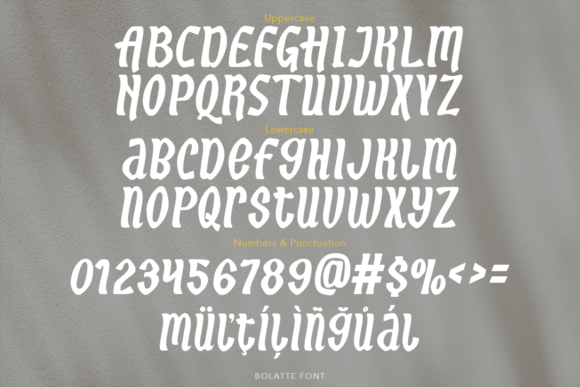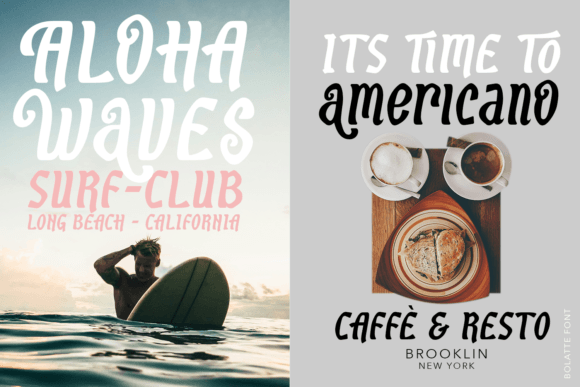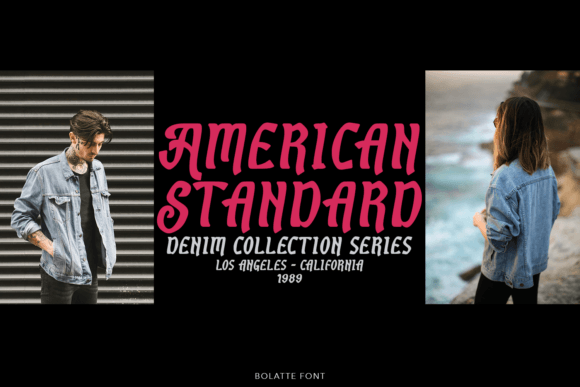
The Bolatte Font: A Whimsical Addition to Your Design Arsenal
I’ll never forget the time I was working on a project for a children’s book, and I was struggling to find the perfect font. The client wanted something playful, yet elegant, and I was determined to deliver. That’s when I stumbled upon the Bolatte font. This cute and charming display font has since become a staple in my design toolkit, and I’m excited to share its magic with you! ✨
An Honest Review: The Good and the Quirky
So, what makes Bolatte font so special? Let’s dive into the good stuff:
- ✅ Playful and whimsical: Bolatte font is perfect for designs that need a dash of personality.
- ✅ Elegant and refined: Despite its playful nature, Bolatte font still exudes a sense of sophistication.
- ✅ Highly versatile: This font can be used for a wide range of projects, from children’s books to branding and advertising.
- ✨ Adds a touch of charm: Bolatte font has a way of making your designs feel more approachable and friendly.
Of course, no font is perfect, and Bolatte has a few quirks:
- 🤔 Limited use in body text: While Bolatte font is amazing for headlines and titles, it may not be the best choice for longer blocks of text.
- ⚠️ May not be suitable for formal projects: If you’re working on a project that requires a high level of formality, Bolatte font might not be the best fit.
Exploring OpenType Features, Glyphs, and Stylistic Alternates
One of the standout features of Bolatte font is its range of OpenType features, glyphs, and stylistic alternates. These can add an extra layer of creativity to your designs, allowing you to:
- Swap out letters for alternative glyphs
- Access stylistic alternates for a more customized look
- Use ligatures to create a more fluid, connected text
The Story Behind Bolatte Font
Bolatte font was designed with one goal in mind: to create a font that’s both playful and elegant. The designer, inspired by the whimsy of childhood and the sophistication of adulthood, set out to create a font that’s perfect for designs that need a bit of personality. And so, Bolatte font was born! 🎉
- Q: What type of projects is Bolatte font best suited for?
- A: Bolatte font is perfect for designs that need a bit of personality, such as children’s books, branding, and advertising.
- Q: Can I use Bolatte font for body text?
- A: While Bolatte font is amazing for headlines and titles, it may not be the best choice for longer blocks of text.
- Q: Is Bolatte font suitable for formal projects?
- A: Bolatte font might not be the best fit for formal projects, but it depends on the specific design and the level of formality required.